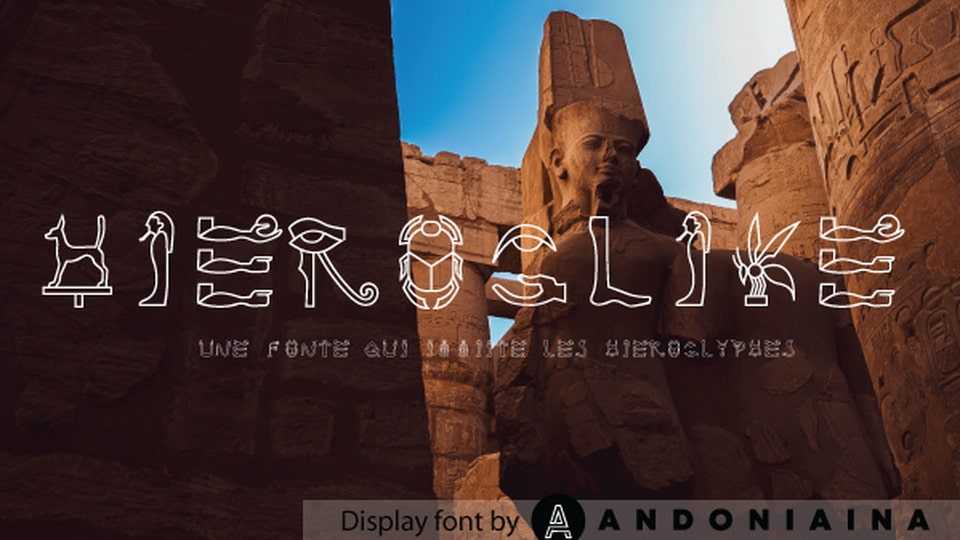
Download Hieroglike font, a mesmerizing decorative typeface inspired by the mystique and symbolism of ancient hieroglyphs. Each character in this typeface is a captivating visual symbol, reminiscent of the enigmatic scripts that once adorned the walls of ancient civilizations.
Designer: Andoniaina